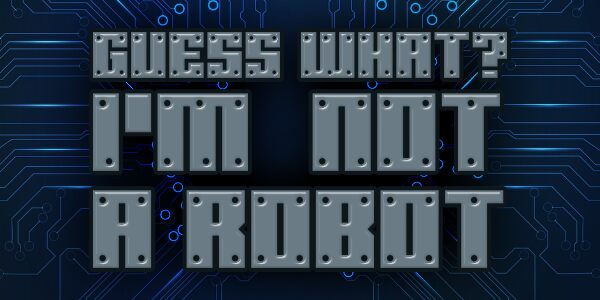
Guess What, I'm Not a Robot Regular
Dive into the digital age with "Guess What, I'm Not a Robot," a font that challenges the boundaries between human creativity and machine precision. Crafted by the innovative minds at Chequered Ink, this display font embodies a techno style that is as much about personality as it is about performance. With its extra-bold weight, each character commands attention, making it an ideal choice for projects that require a strong visual impact.
The font's aesthetic is both arresting and methodically structured, reflecting an era of high-tech advancements and cybernetic dreams. The sharp lines and blocky forms convey a sense of futuristic strength, while the clever design nuances add a layer of sophistication. Whether used in gaming interfaces, tech startup branding, or cutting-edge advertising campaigns, "Guess What, I'm Not a Robot" offers versatility within its unique style.